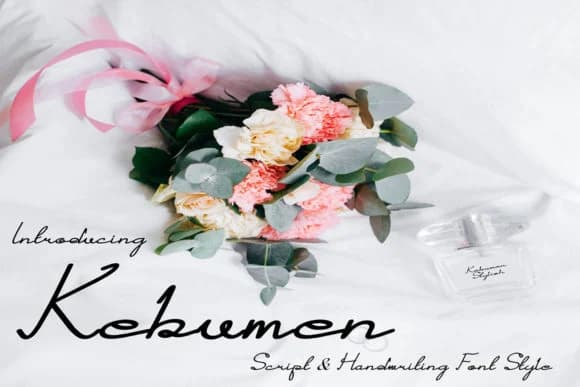
This script feels relaxed yet refined, blending personal warmth with polished elegance. Kebumen Font by F2 Gallery brings the quality of genuine handwriting to your designs without sacrificing readability or precision. The letterforms flow with a natural, organic curve, giving each letter distinct character while maintaining consistency across the alphabet. Use it for wedding invitation suites where authenticity matters most, personalized greeting cards that genuinely need heart, boutique product labels and packaging designs, and DIY craft projects calling for something handmade and authentic.
The handwritten quality never feels forced or overly stylized. What sets Kebumen apart is the careful balance between spontaneity and control, creating text that looks genuinely written but with the precision and care required in finished work. This versatility means it works equally well as a headline, signature element, or focal point in any design that benefits from warmth, personality, and human touch.
Pair it with a clean, minimal sans-serif for body text to keep things balanced and readable. The contrast between hand-drawn script and structured typeface creates visual interest while staying organized and legible. Grab Kebumen from Creative Fabrica and add genuine character to your next creative project.
Kebumen Font is a script font that shines as a display or heading face. Pair it with a clean sans-serif or serif font for body text β the contrast creates a clear hierarchy while the two styles stay balanced and easy to read.
Kebumen Font